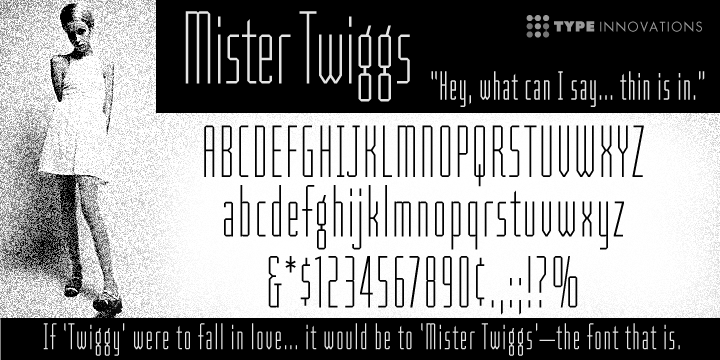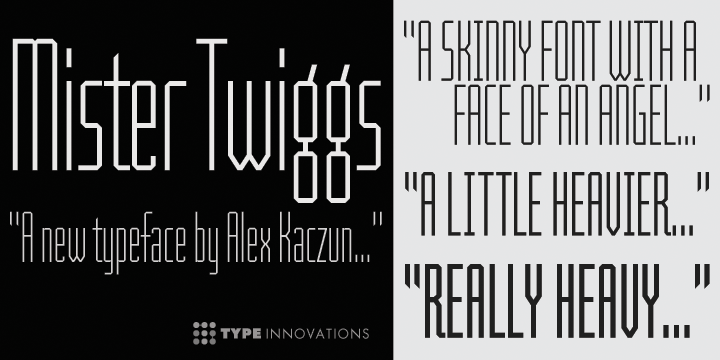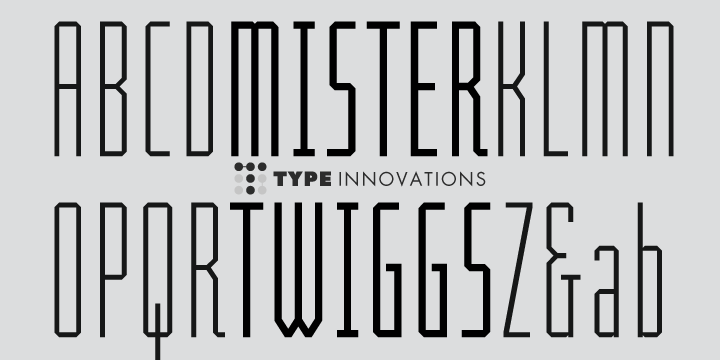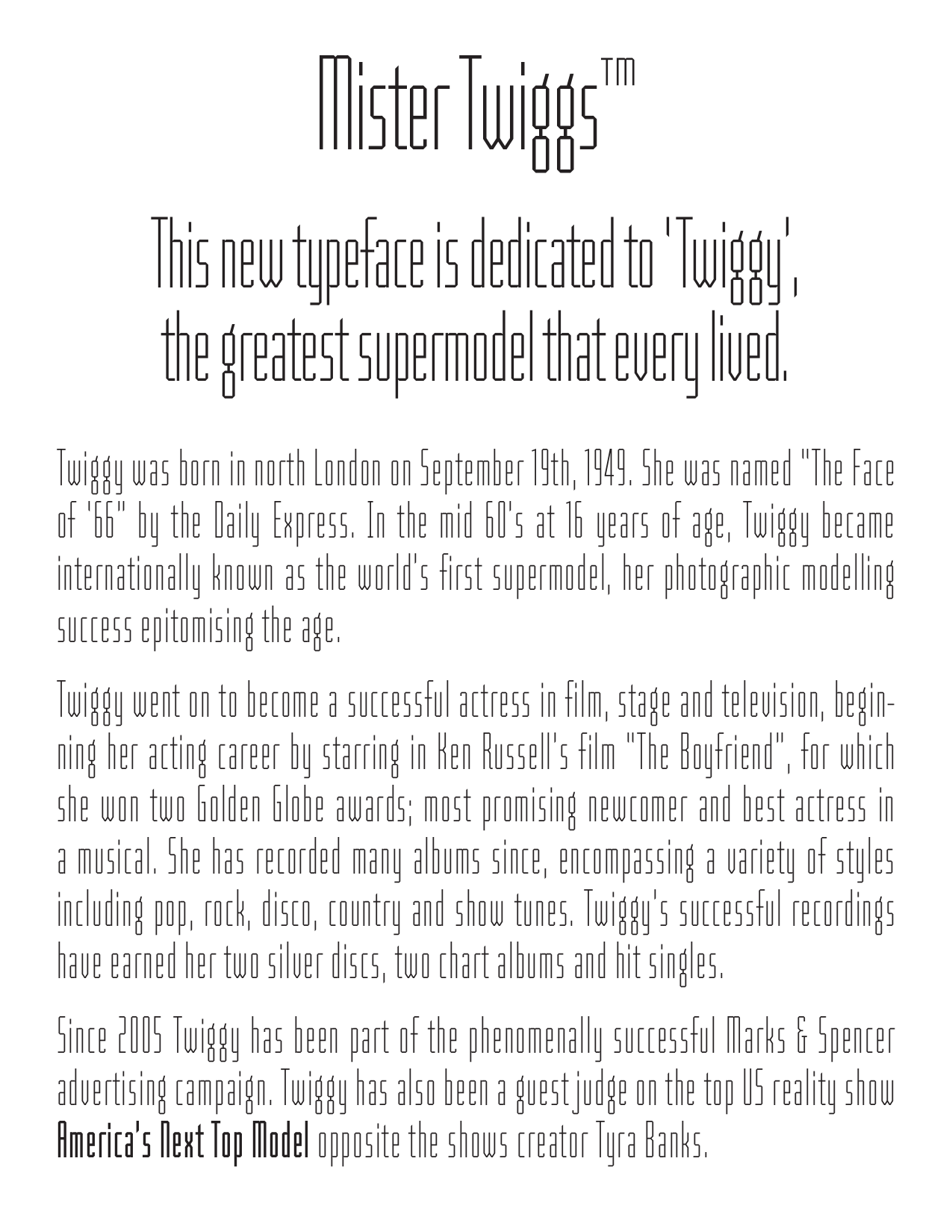
Mister Twiggs Collection
Mister Twiggs
RegularMister Twiggs Heavy
RegularMister Twiggs Thin
Regular‘Mister Twiggs’ is a contemporary modern sans created by the American type designer Alex Kaczun. There are absolutely no curves in this elegant typeface. It has sharp corners with extra tall capitals and a narrow waistline. ‘Mister Twiggs’ comes in 3 flavors: regular, thin and heavy.
Alex is in the process of adding a professional set to this series, including small caps, old style figures and numerous alternate character forms.
Additionally, there are plans to make yet additional styles that will be called ‘Misses Twiggs’, ‘Miss Twiggs’, ‘Junior Twiggs’ and ‘Little Twiggs’.
Hey, what can I say—thin is in.